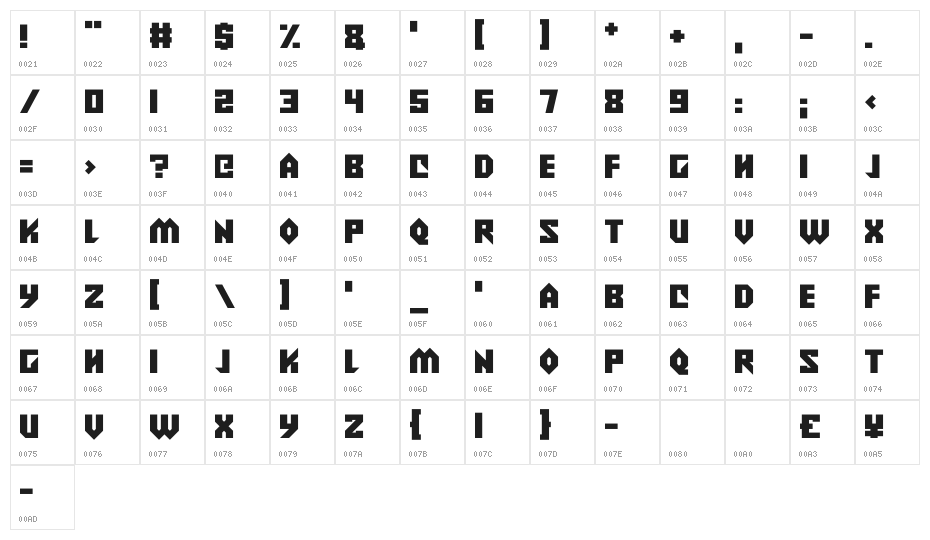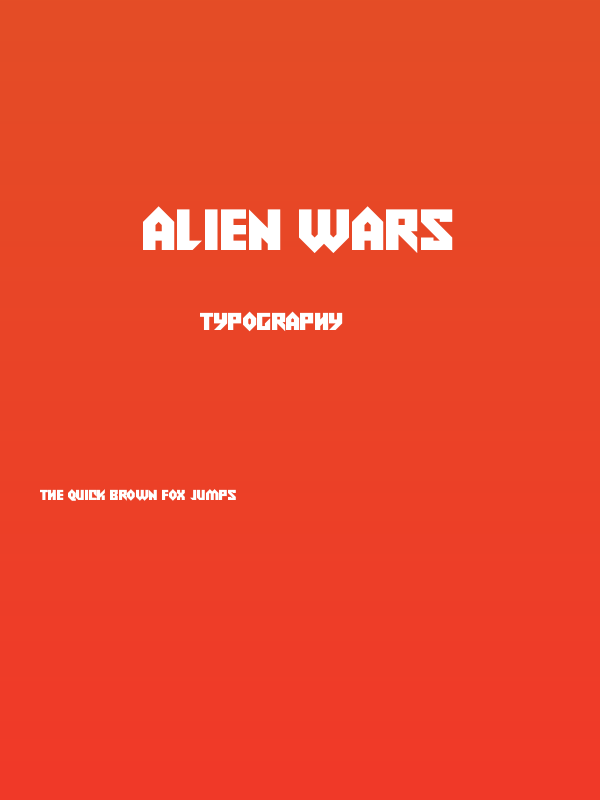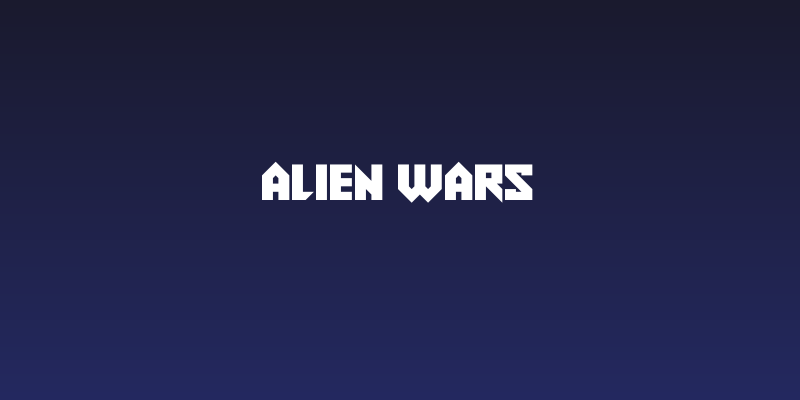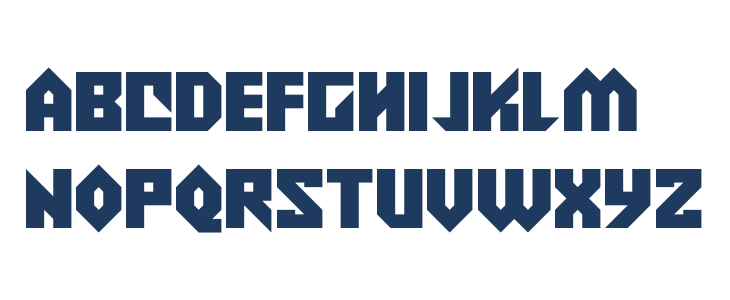
Alien Wars Font
Alien Wars Description
This font features a bold, geometric design with sharp angles and a futuristic aesthetic. The characters are constructed with thick, block-like forms, giving them a strong and imposing presence. The angular cuts and unique shapes create a sense of movement and dynamism, making it ideal for attention-grabbing designs. The uppercase and lowercase letters maintain a consistent style, while the numerals and special characters complement the overall look. This font is perfect for projects that require a modern and edgy feel.
| Overall Style | Futuristic, Edgy |
| Proposed Projects | Ideal for sci-fi themed posters, video game titles, and futuristic branding. |